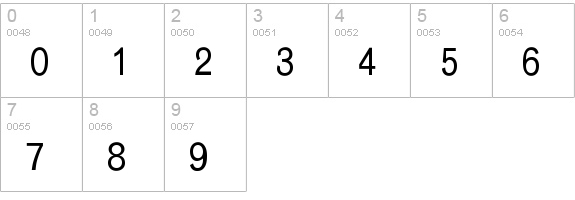
GroschenBook Font Details
GroschenBook font is a versatile and elegant typeface that exudes sophistication and charm. With its classic yet modern design, this font is perfect for a wide range of projects, from branding to editorial design. The clean lines and balanced proportions of GroschenBook make it easy to read and visually appealing. One of the best things about GroschenBook font is that it is available for free! That's right, you can download this stunning font at FontsMarket.com without spending a dime. Whether you are a designer looking to add a touch of refinement to your work or a business owner in need of a stylish font for your marketing materials, GroschenBook is the perfect choice. Don't miss out on the opportunity to elevate your designs with this beautiful and free font. Download GroschenBook today and see the difference it can make in your projects.